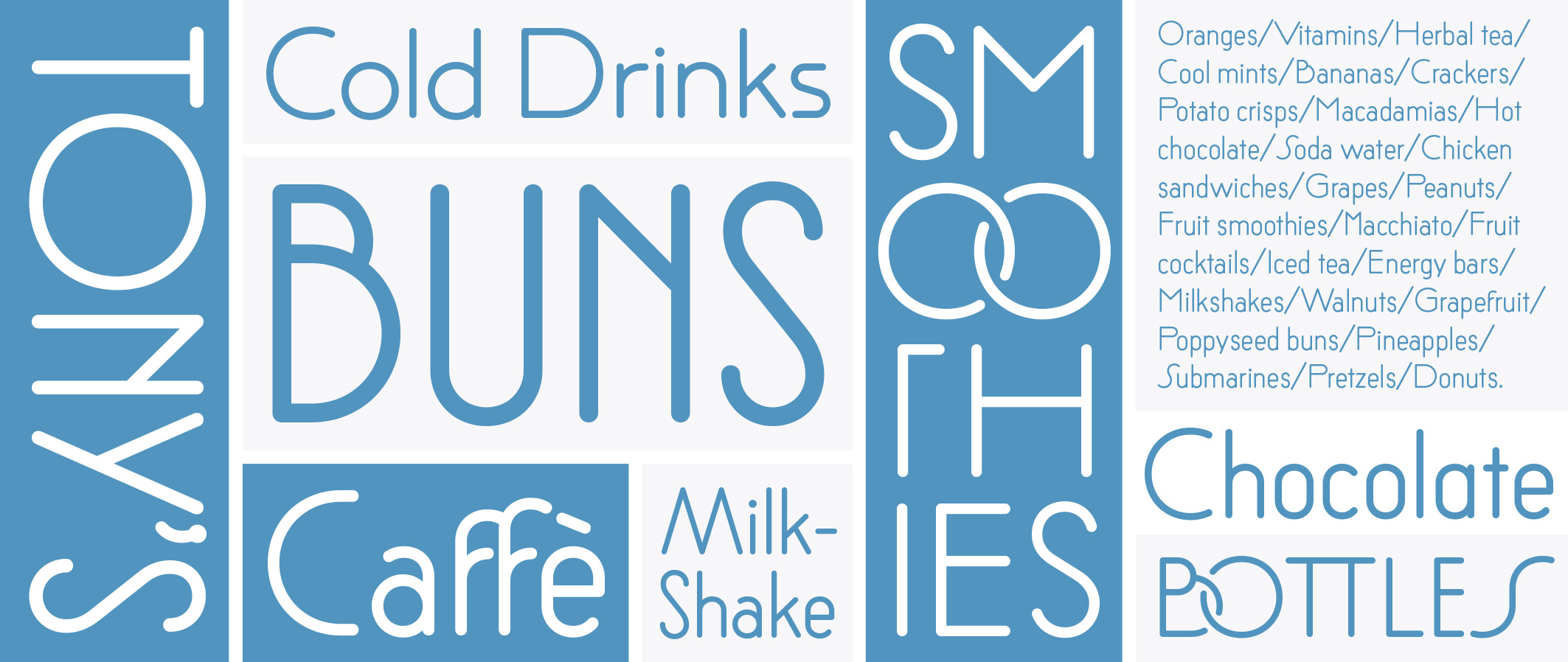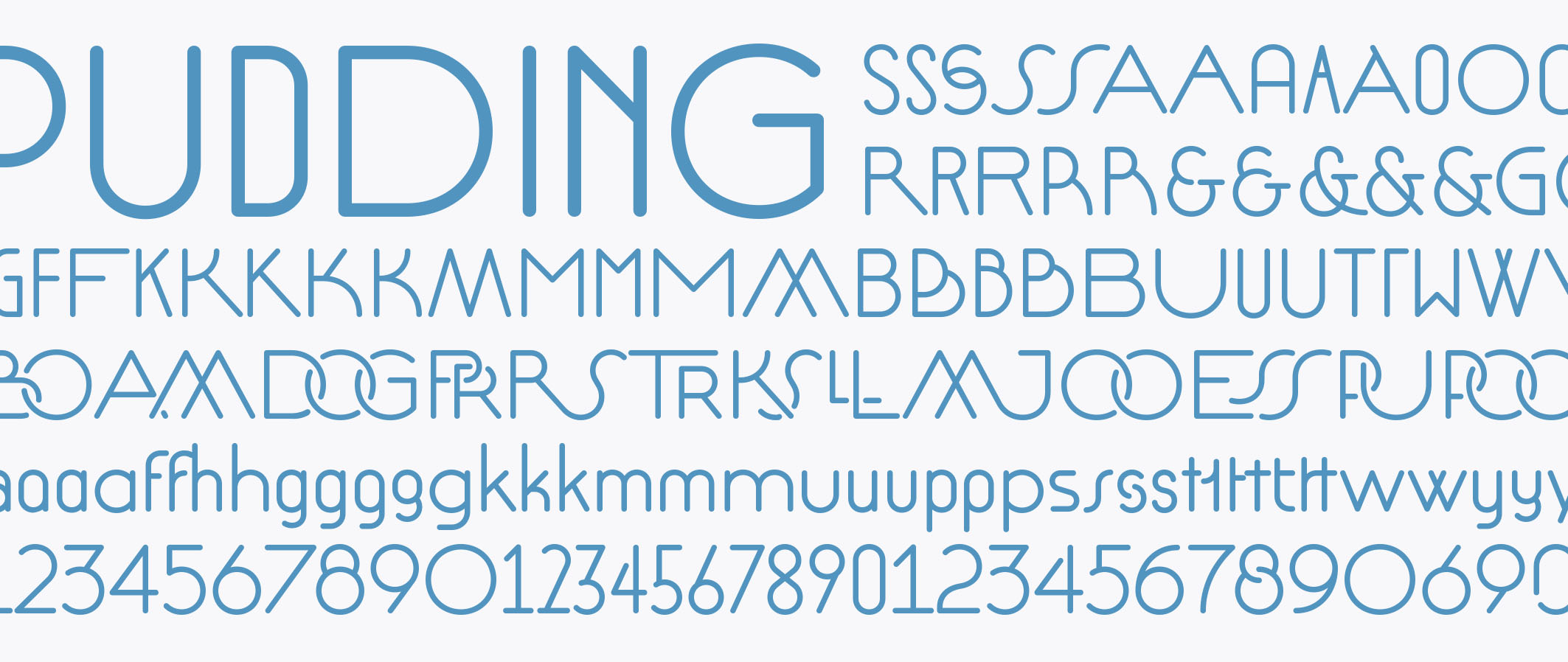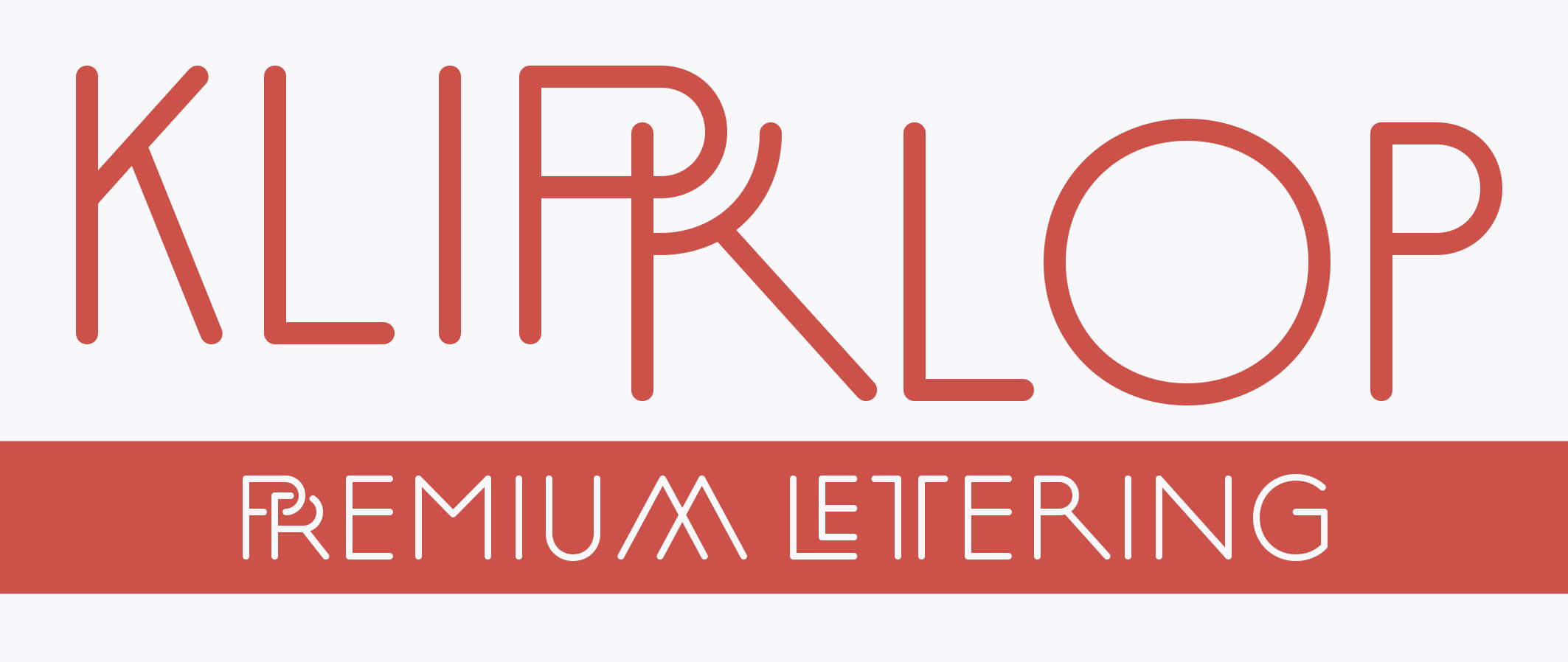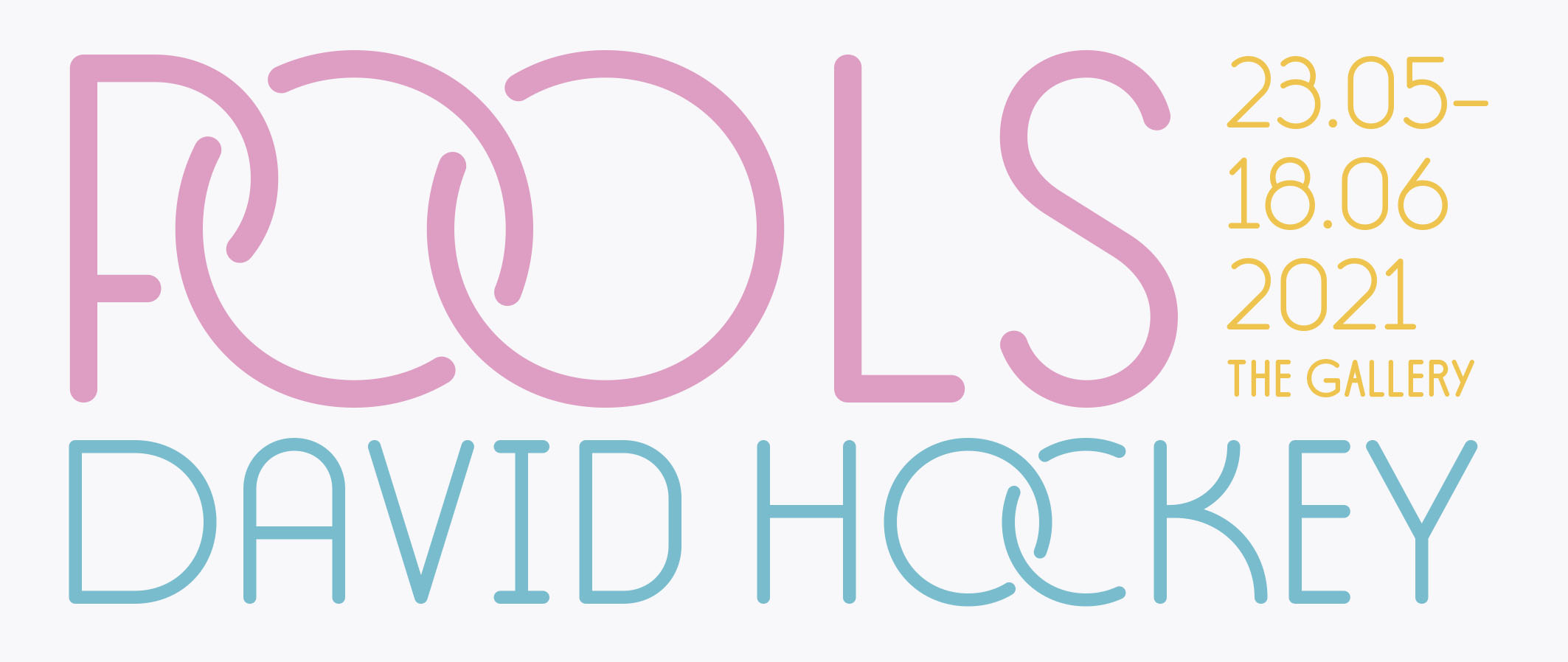
Klip Klop
With three weights and many variations Klip Klop offers a large set of characters for playful lettering. The flavouring is strong avant garde and the build is strict geometrical with even stroke thickness throughout.
Designed by Hans Samuelson in 2023. Use it for Headlines or signage in any medium! Klip Klop!